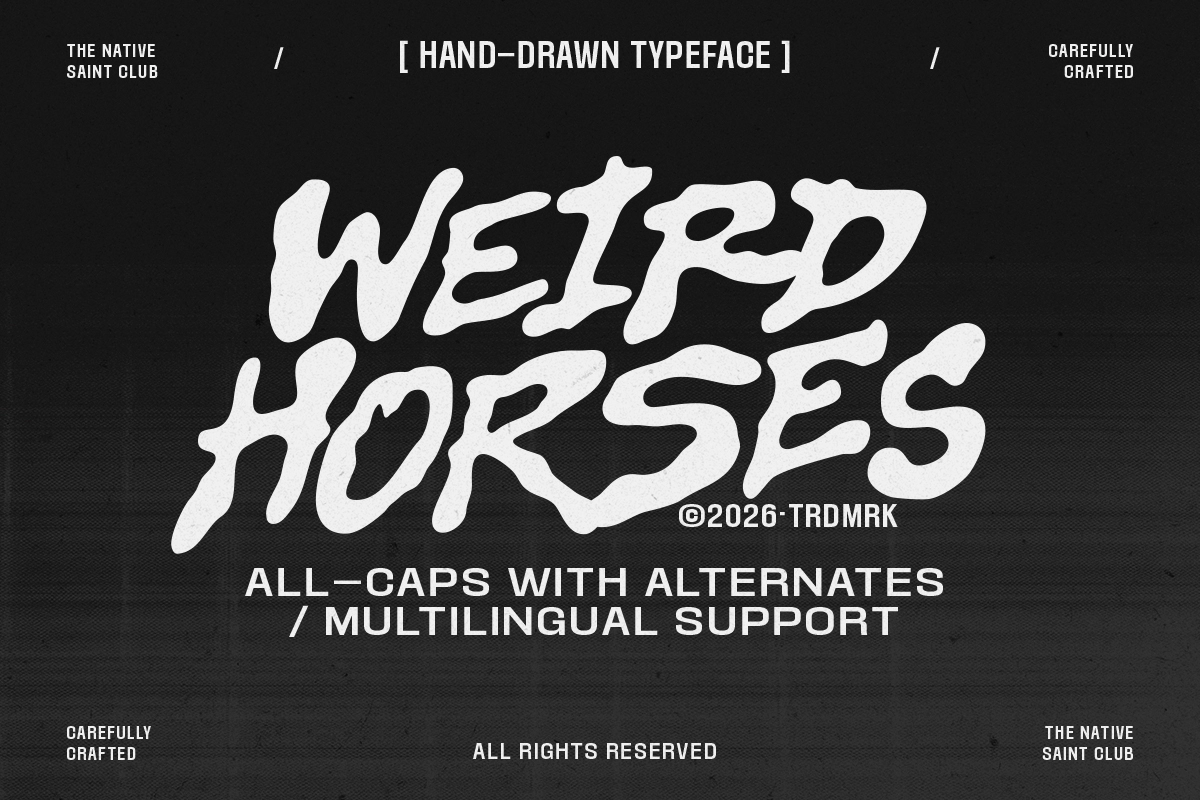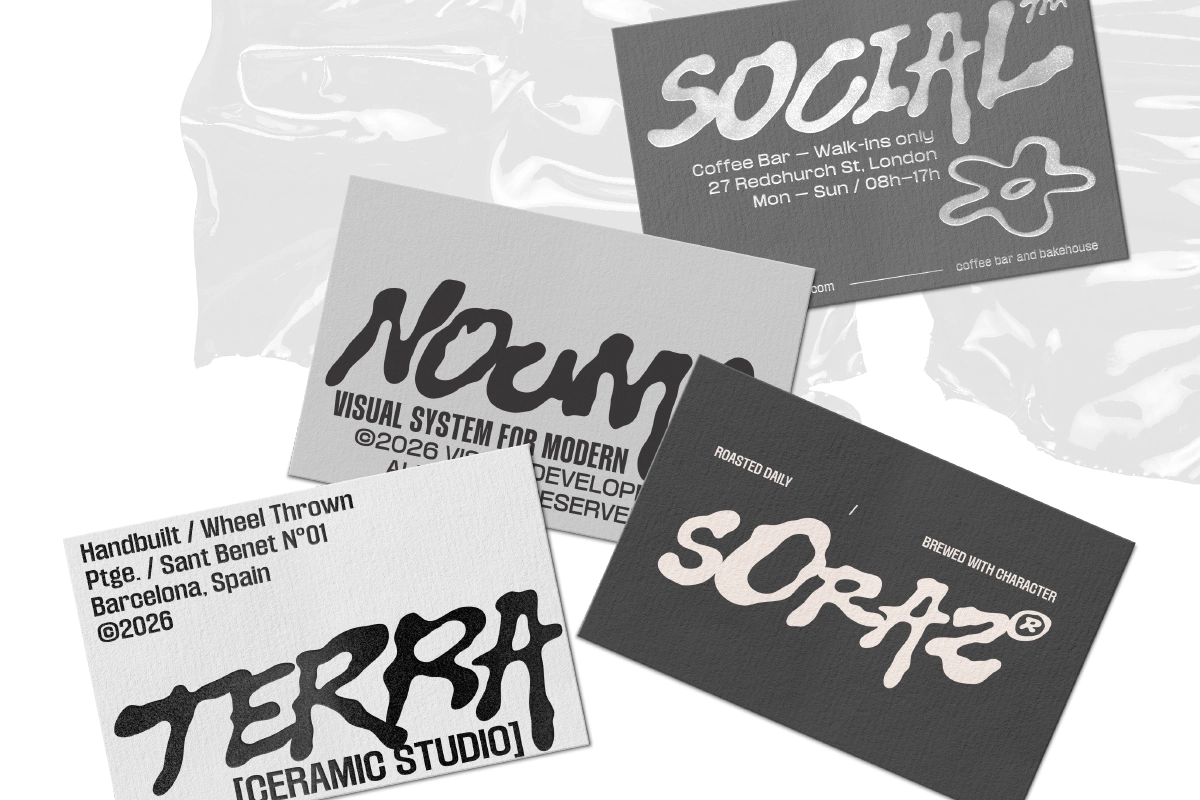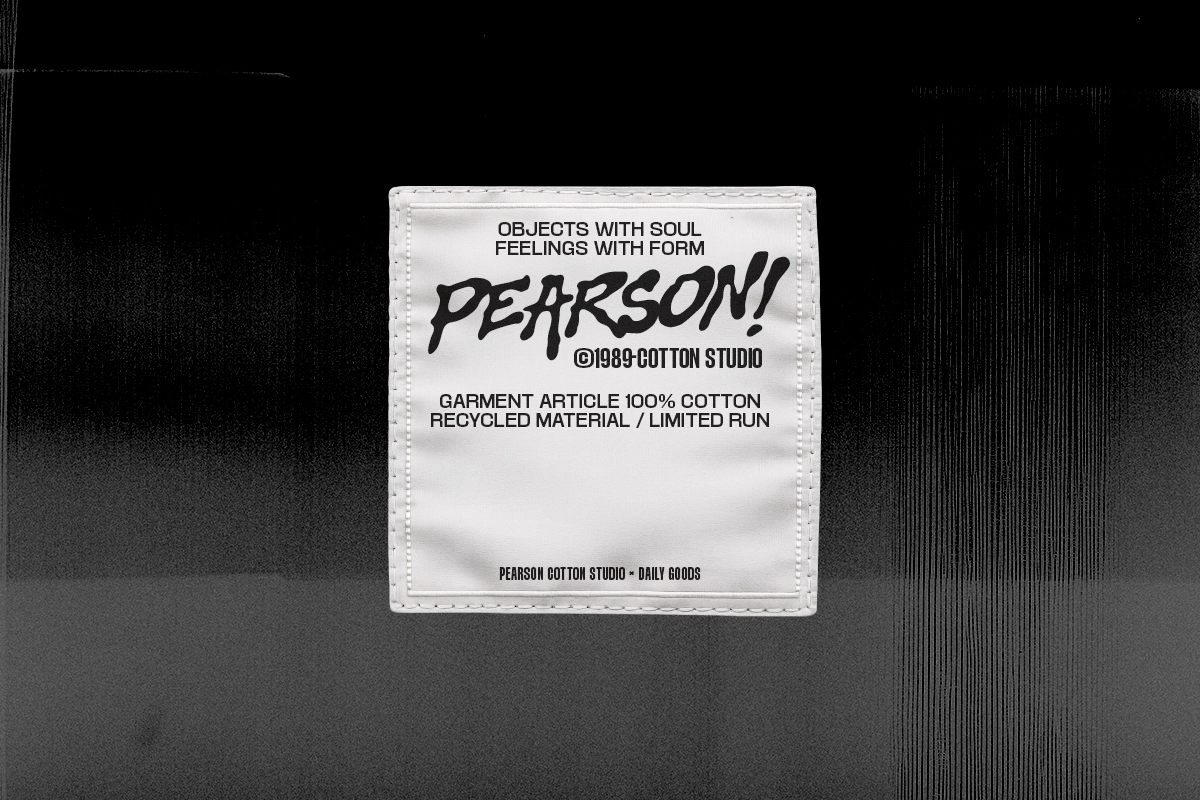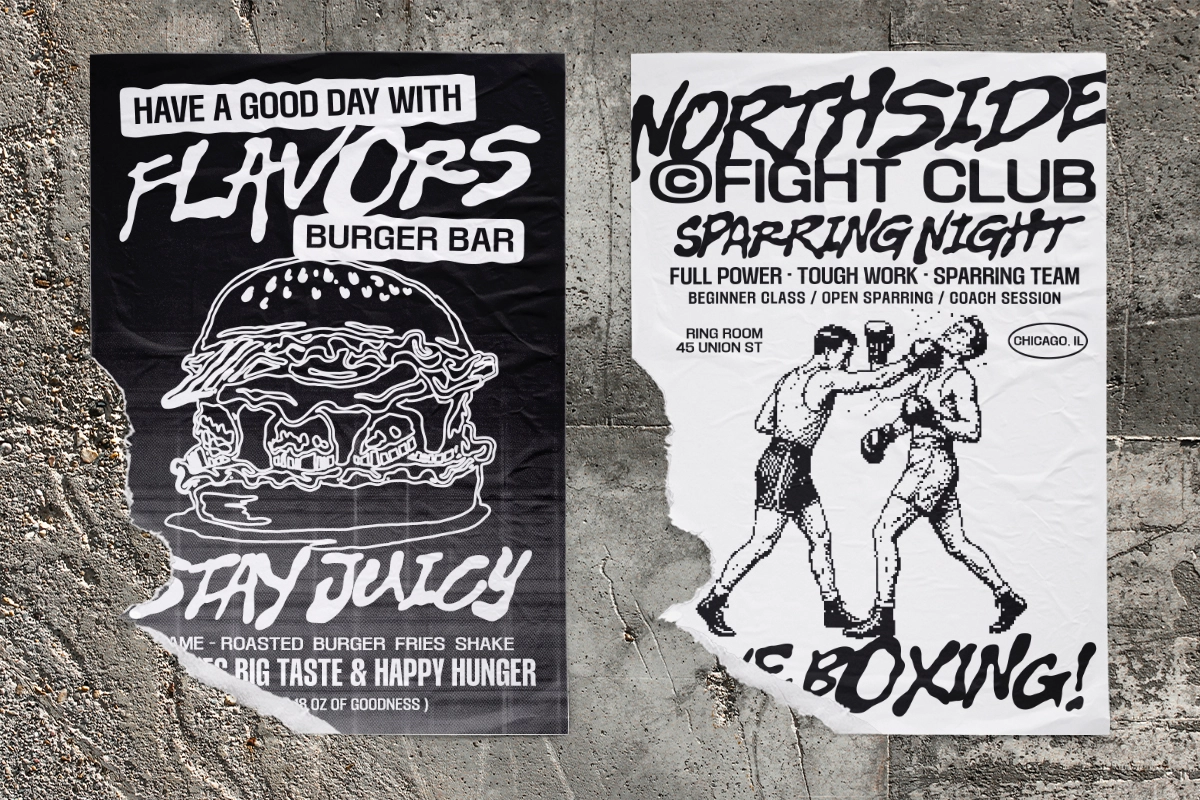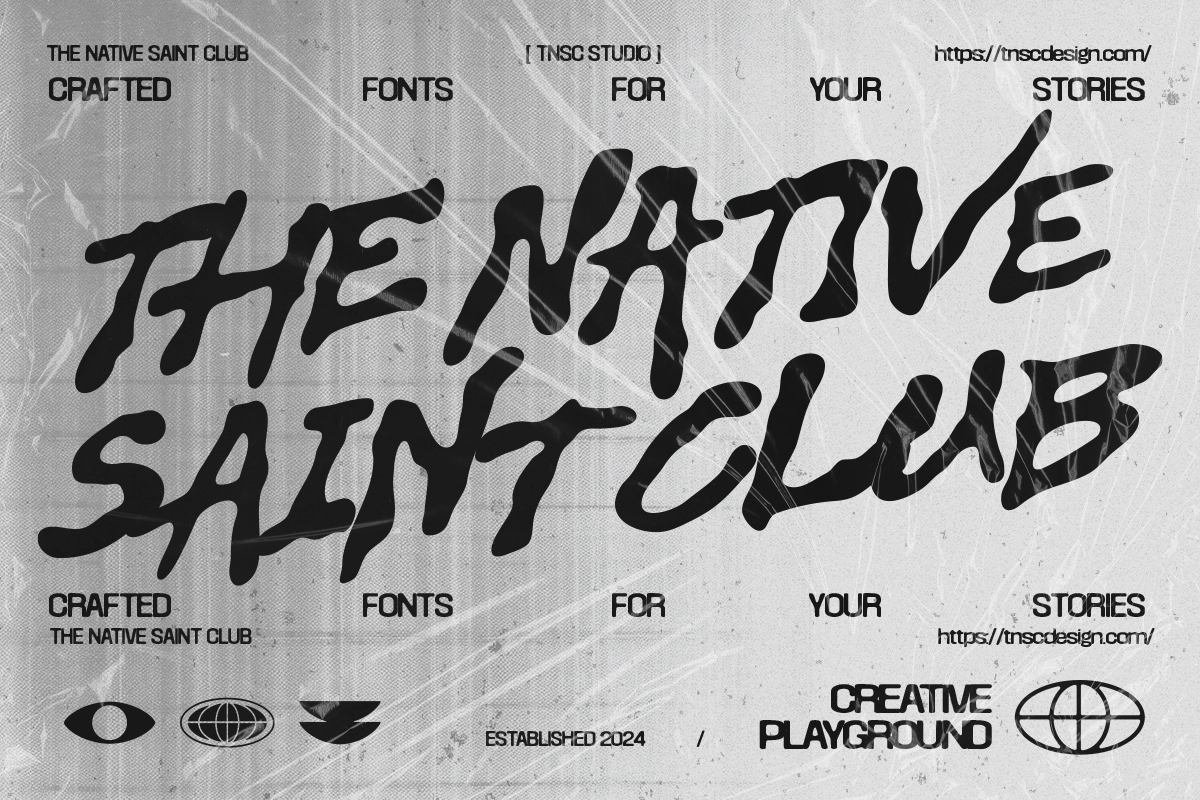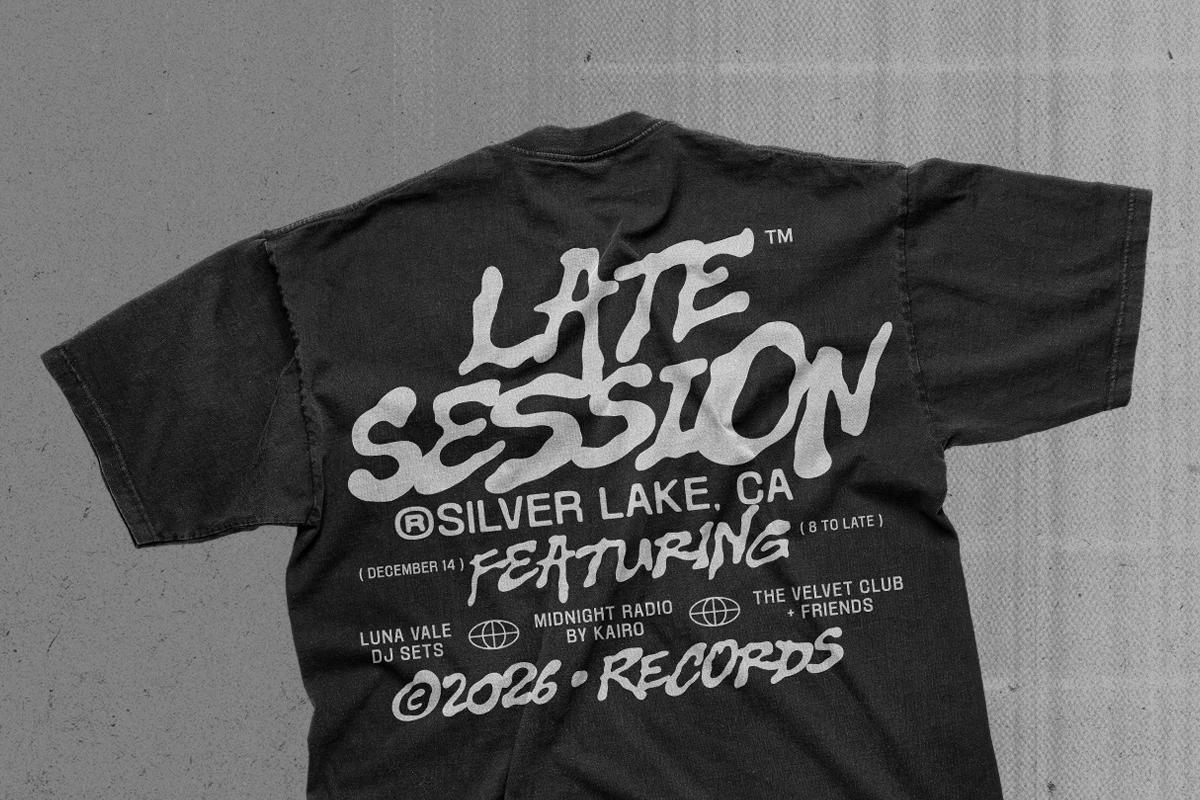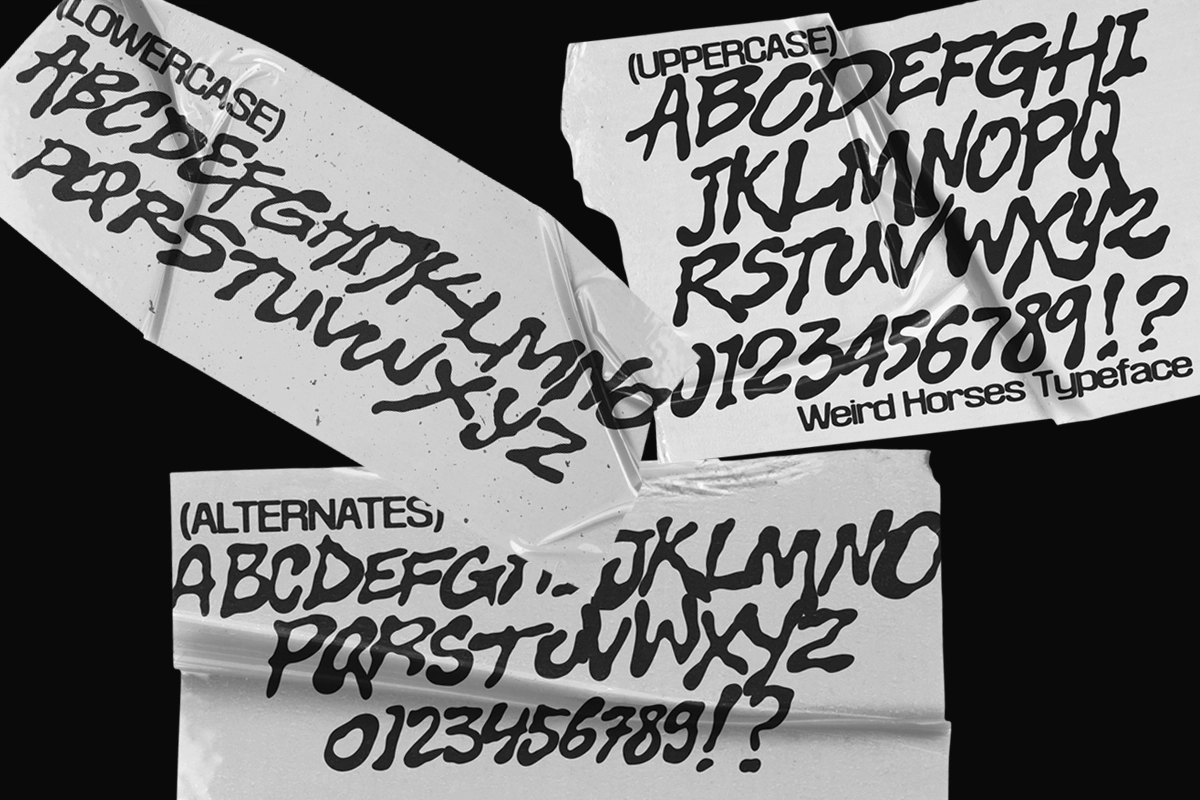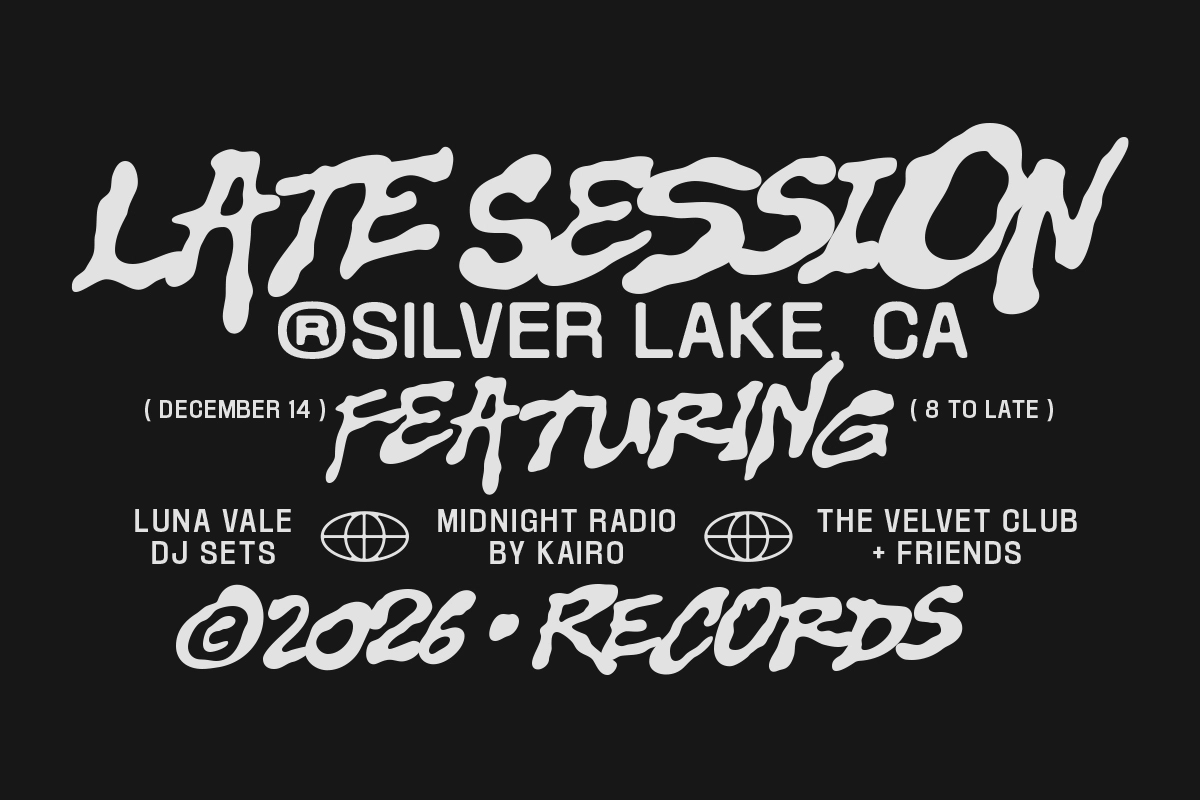
Weird Horses - Bold Hand Drawn Display Font
TNSC Weird Horses
Weird Horses is a bold hand-drawn display font with the mass and instability of lettering done fast and on purpose — thick strokes that swell unevenly, outer edges that blob and drag, and an overall weight that sits closer to a fat-cap marker tag than a calligraphy brush. The uppercase and lowercase share the same overbuilt energy, and the alternates set gives enough variation to break repeating letterforms across long words. On a t-shirt back or a gig poster, it reads as something drawn, not set.
Use it for streetwear graphics, music event posters, record label identities, skateboard deck art, festival merch, and any headline that needs to look like it came off a wall.